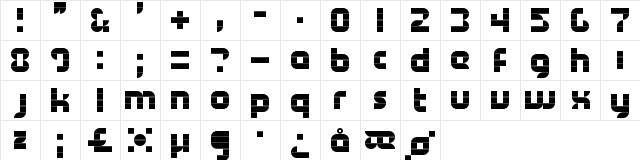
Structurosa Regular
| Designer | paul hunt |
Design Context for Structurosa Typeface
Structurosa is a composed and adaptable typeface that performs quietly and consistently across a wide range of design contexts.